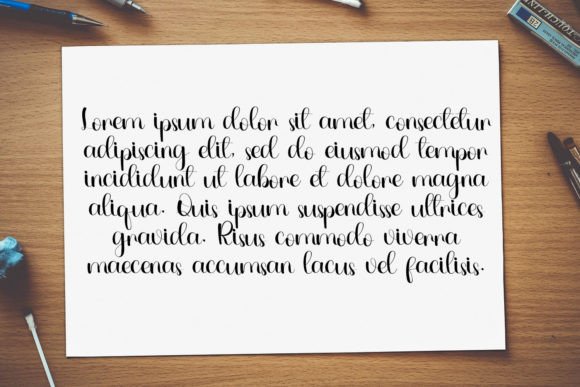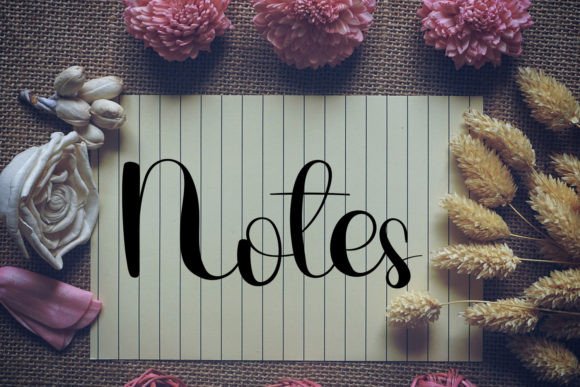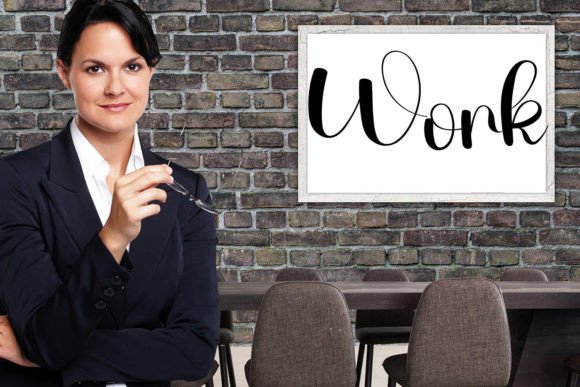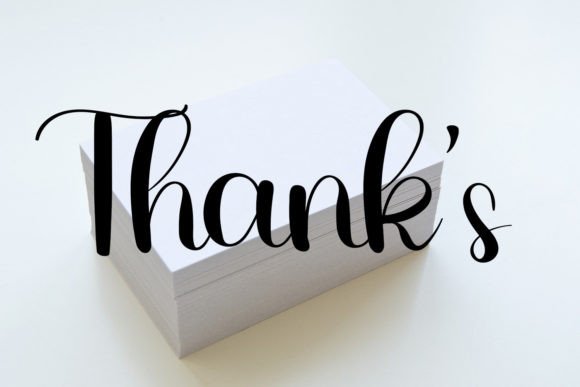
Introduction to Selective Font
Have you ever stared at a blank canvas, waiting for the perfect idea to strike? That’s exactly where many designers find themselves when starting a new creative project. The blank slate can be intimidating, but it’s also an opportunity to create something truly unique and special. For designers looking to add a touch of elegance and sophistication to their work, the Selective Font is a game-changer.
This versatile font is perfect for a wide range of design purposes, from YouTube banners and cover logo mockups to wedding invitations and ID cards. Its simple yet unique design makes it a valuable resource for designers who want to elevate their work and stand out from the crowd. With the Selective Font, the possibilities are endless, and the best part? It’s available for free download, making it an accessible design resource for creatives of all levels.
- High-quality, customizable font with a transparent background, ideal for creative projects.
- Available in multiple sizes, ranging from 12pt to 72pt, to suit various design needs.
- Resolution-independent, ensuring crisp and clear text display on high-resolution screens.
- Unique, hand-crafted design makes it a valuable addition to any design resource library.
Honest Review: Selective Font
I recently came across the Selective Font and was excited to give it a try for my next creative project. Overall, I was quite impressed with the font’s quality and versatility.
Here are some things that work well: ✨ High quality and crisp font rendering, making it perfect for digital designs. ✨ The font comes in a range of styles, from casual to formal, allowing for a lot of creative flexibility. ✨ The transparent background option makes it easy to use as a design resource, allowing me to blend it seamlessly with other elements.
Here are some limitations: ⚠️ Limited character set, which may be a concern for those who need to use the font for extensive text-based projects. ⚠️ The font may not be suitable for print designs, as the transparent background can make it difficult to achieve a consistent look when printed.
Selective Font is a versatile design resource that offers high-quality fonts with transparent backgrounds, perfect for creative projects. With a free download option, you can easily integrate these fonts into your designs.
Selective Font is ideal for creating graphics, logos, and text overlays for videos and presentations. Its transparent background feature makes it easy to place the font on any background image.
To get the most out of Selective Font, experiment with different font styles and sizes to find the perfect combination for your design project. You can also use the font in combination with other design elements to create a unique look.